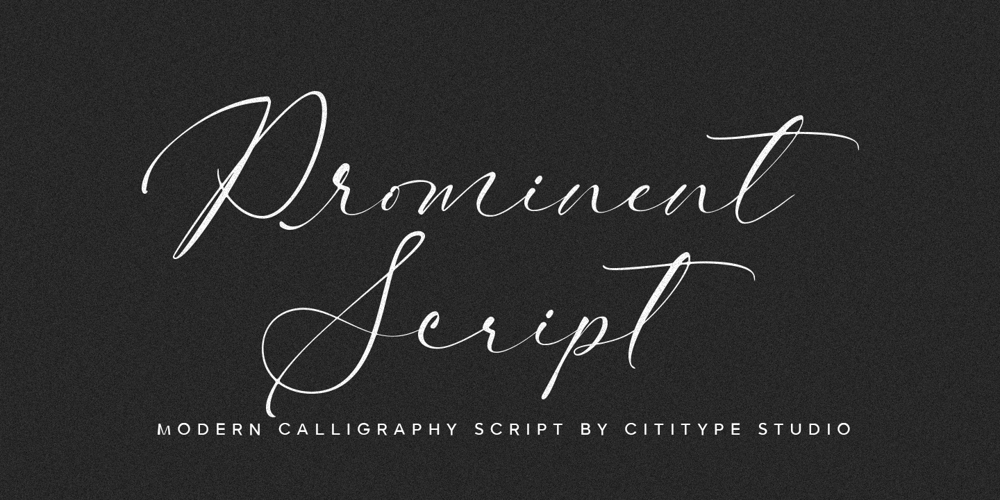
Prominent Script Font Family was designed by Muhammad Taufik, Siti Saribanon Nurjannah and published by Cititype. Prominent Script contains 1 styles and family package options. ntroducing “Prominent Script” Modern Calligraphy Script, an enchanting typeface that radiates elegance and sophistication. This exquisite script captures the fluidity and charm of modern calligraphy, making it ideal for projects that require a touch of feminine refinement. With its stylish shapes, smooth curves, and well-balanced ascenders and descenders, “Prominent” ensures a harmonious and natural writing style that enhances both readability and aesthetic appeal.”Prominent” stands out with its extensive range of ligatures and alternate characters, offering seamless connections for a delicate, hand-drawn appearance. This versatile typeface includes OpenType features such as alternates and multilingual support, ensuring ease of use in modern design software. Perfect for high-end branding, invitations, stationery, and packaging designs, “Prominent” is a timeless blend of classic calligraphy and contemporary style, designed to elevate any project with a touch of elegance and feminine sophistication.